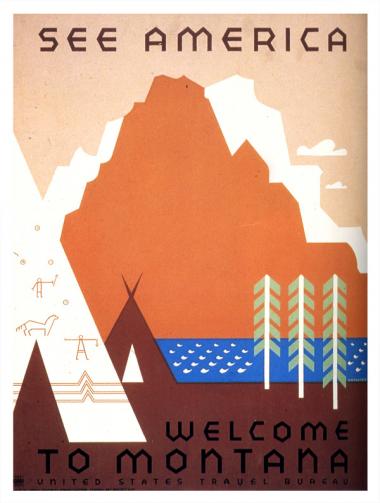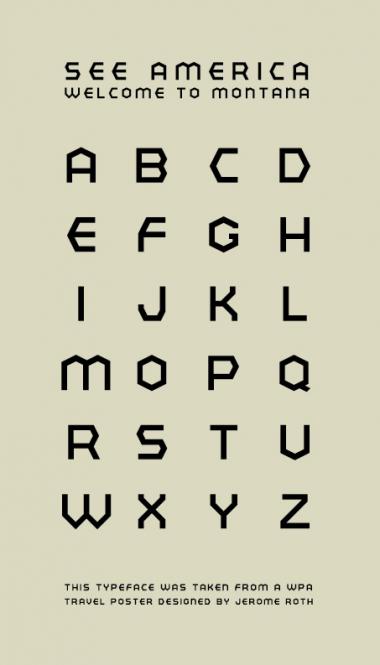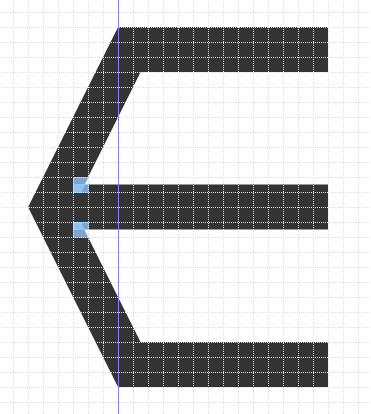
SEE AMERICA
by Axel Leyer
Here is the original poster from Jerome Roth
Axel, hi. I really like this font. It's so clean and crisp. Well Done. :)
There's only one thing that's bothering me a little. With minimal Brick Stacking, you can get the middle bar of E (and other characters) exactly in the center as in the sample poster. It can be done so:
Thalamic, in fact, the middle bar of E and others are center(A=B)...but yes there are something that are not center, the side peaks of C,D,E.. wich are a little down from center.I prefer not to go to a perfect geometric way adding a little bit of "personality" like in the original... I think that optically works better than if was exactly in the middle center.
I am a longtime fan of those Jerome Roth posters. Nice interpretation!
Thanks Caseycastille... this was done with all the respect to Jerome Roth who begin to work at the WPA poster division at age 16...and died in July of the present year at age 90.
Jerome H. Roth (Poster signed Rothstein)was my late husband. He told me he designed the type specifically for this poster. He would have been happy to see it being utilized